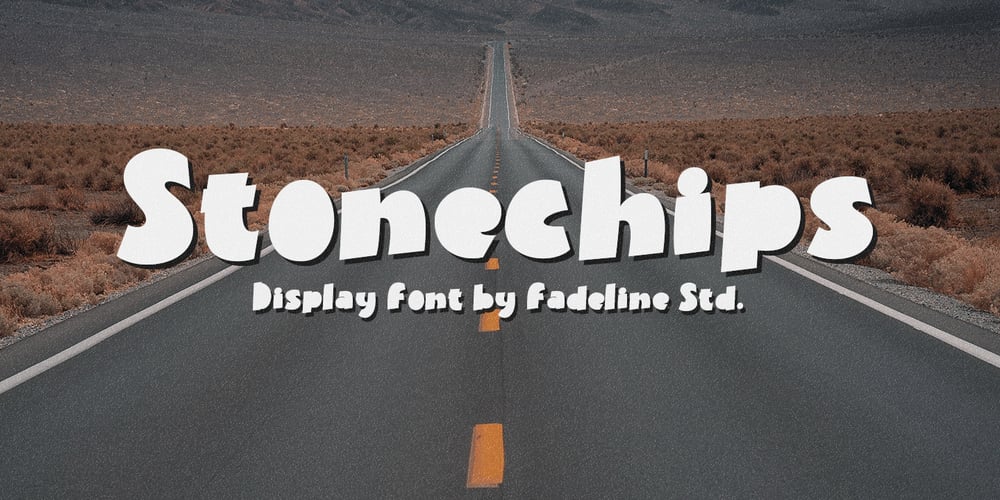
Stonechips
Stonechips font
Stonechips Font Family was designed by Juni Fadil Putra and published by FadeLine Studio. Stonechips contains 1 styles and family package options. Stonechips is a new Display Font with a bold and unique style. This font is carefully made to maintain the balance of each letter, so that creating a bold and strong style in this font. And very easy and convenient to use!With a style like this, this font will be suitable in use for logo’s, branding projects, homeware designs, product packaging, mugs, quotes, posters, shopping bags, logo’s, t-shirts, book covers, name card, invitation cards, greeting cards, and all your other lovely projects.